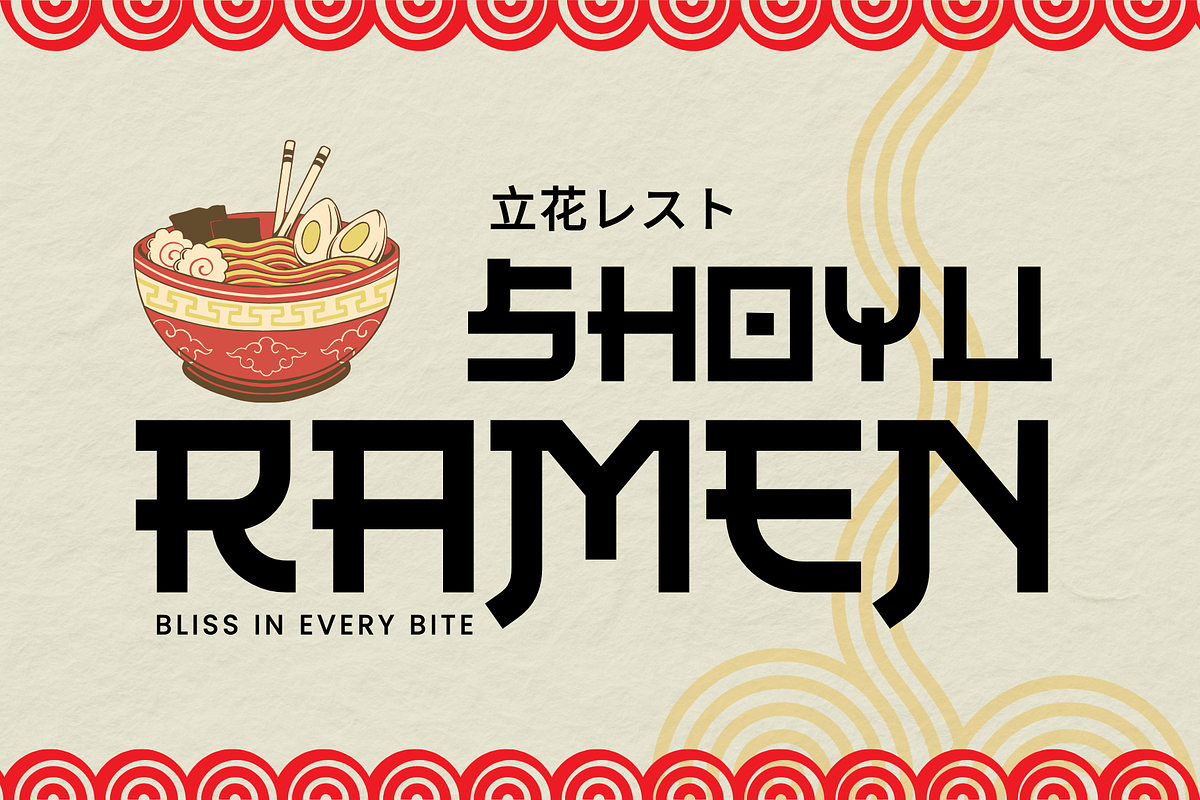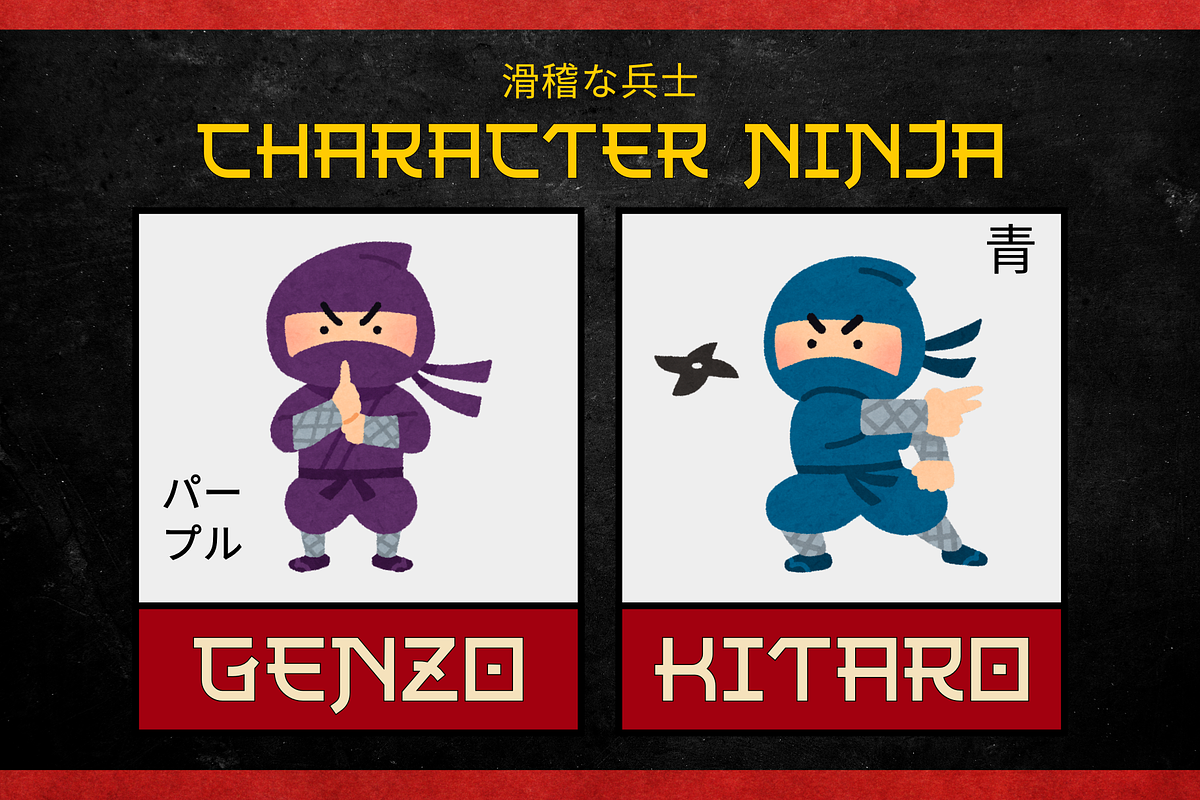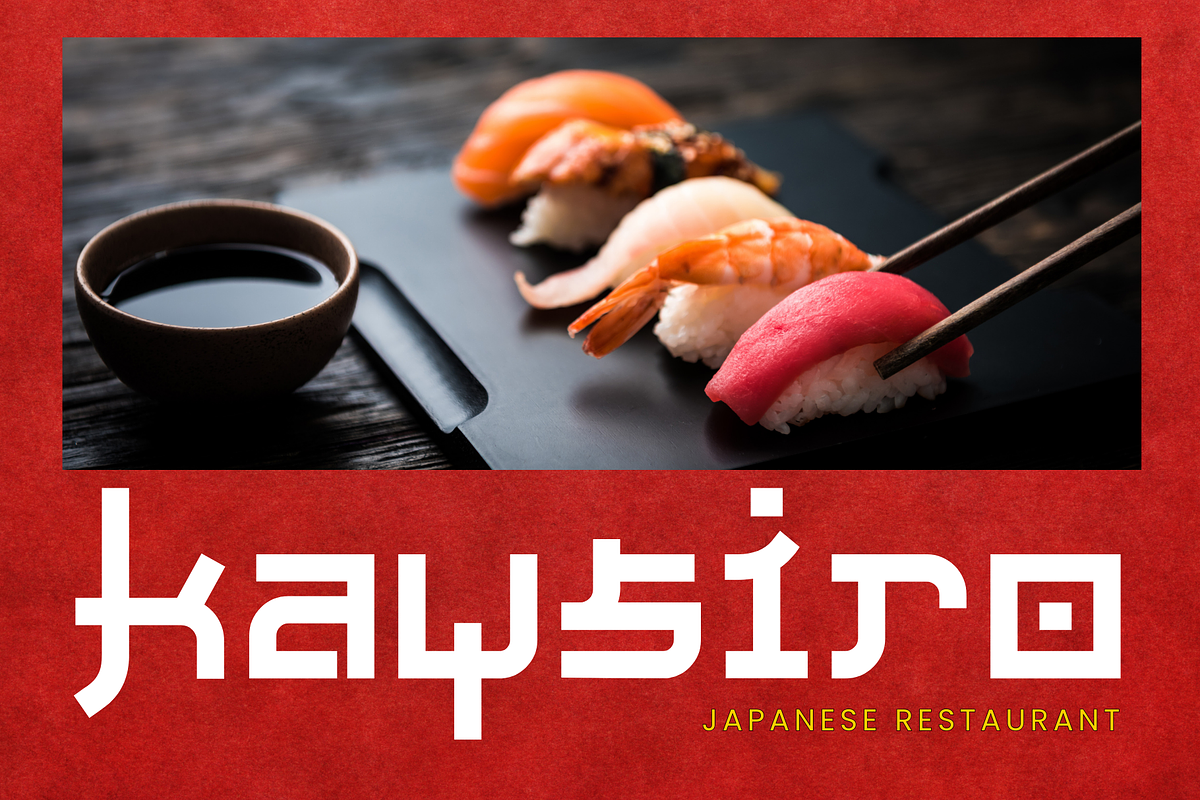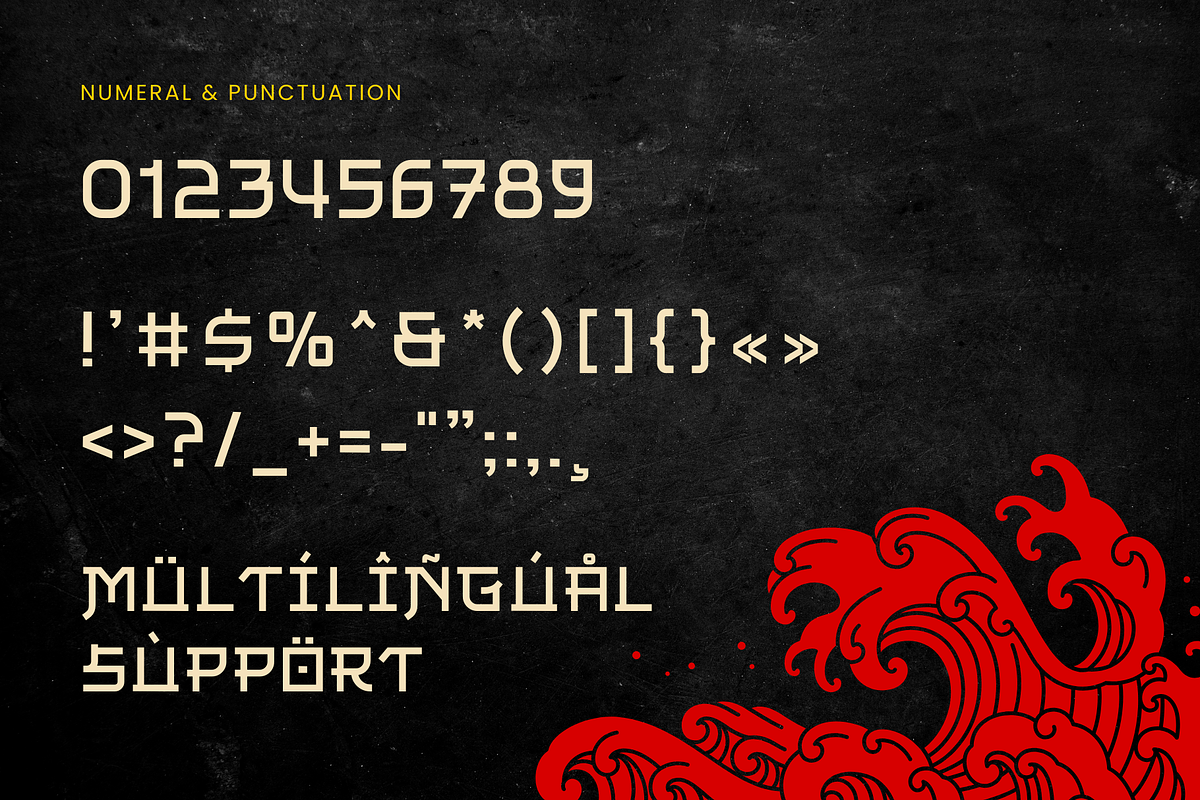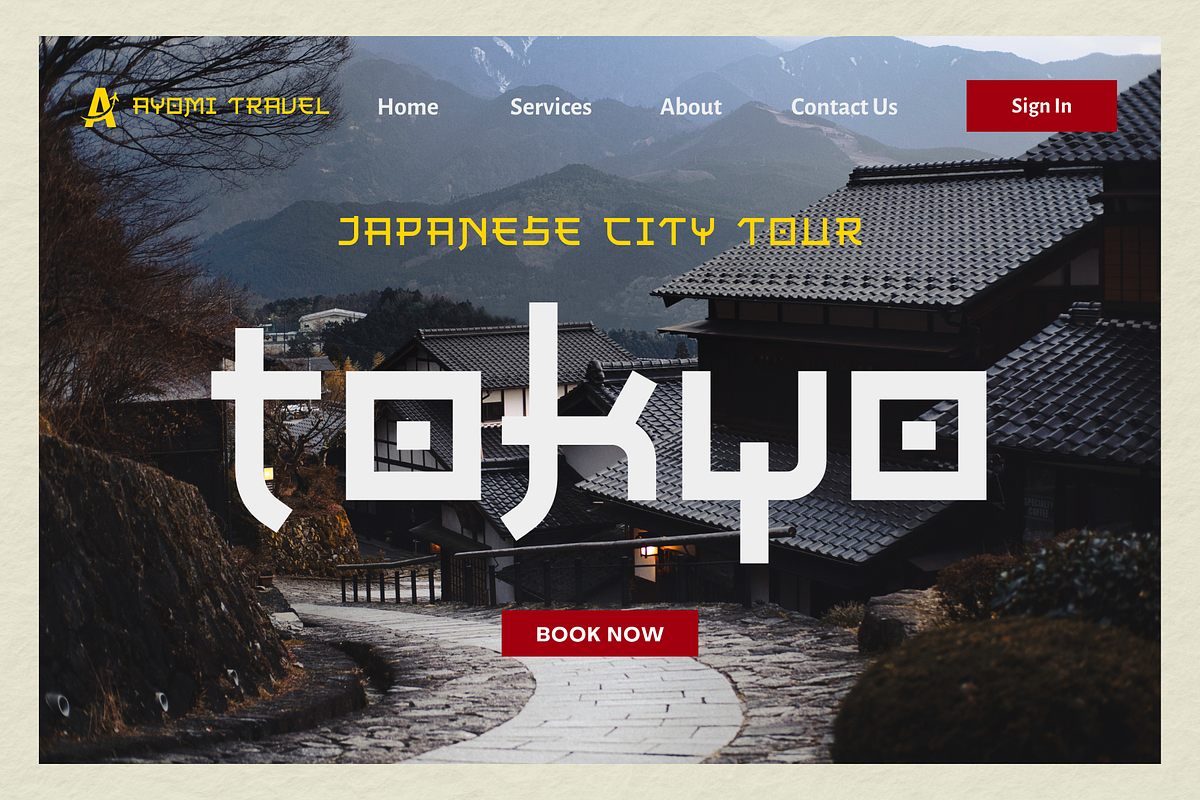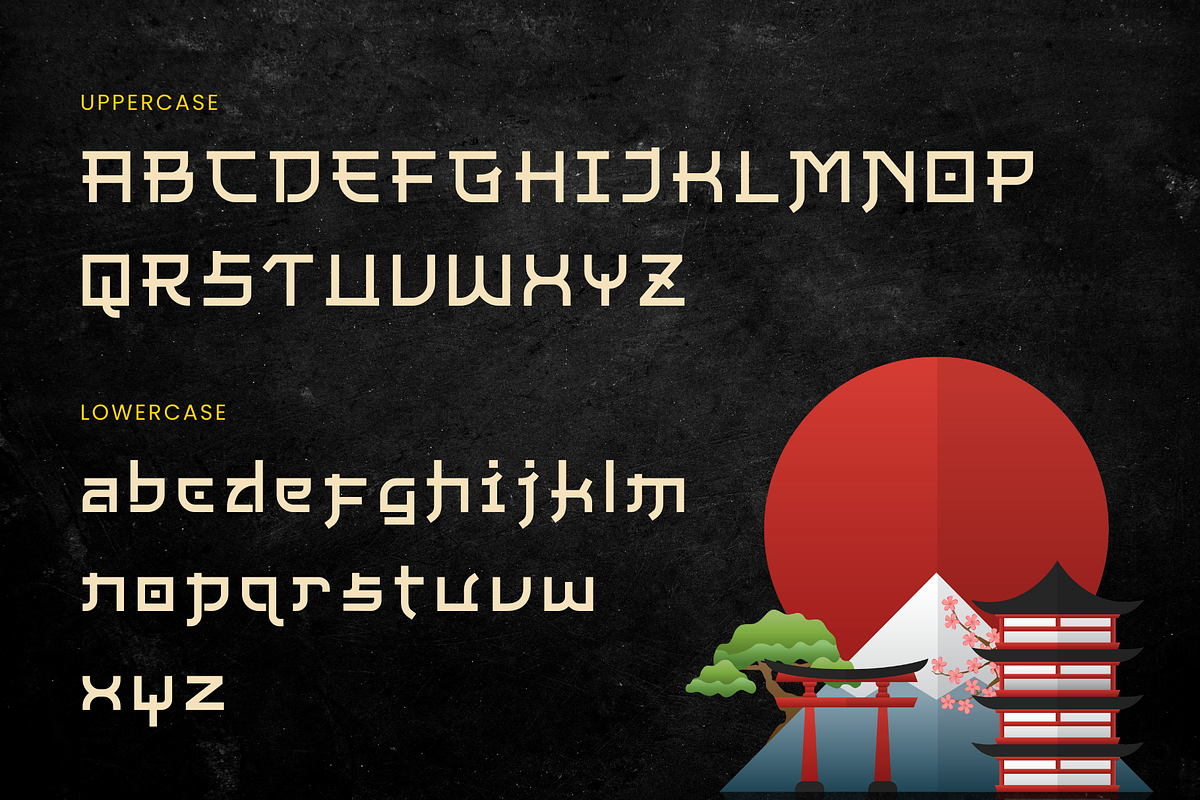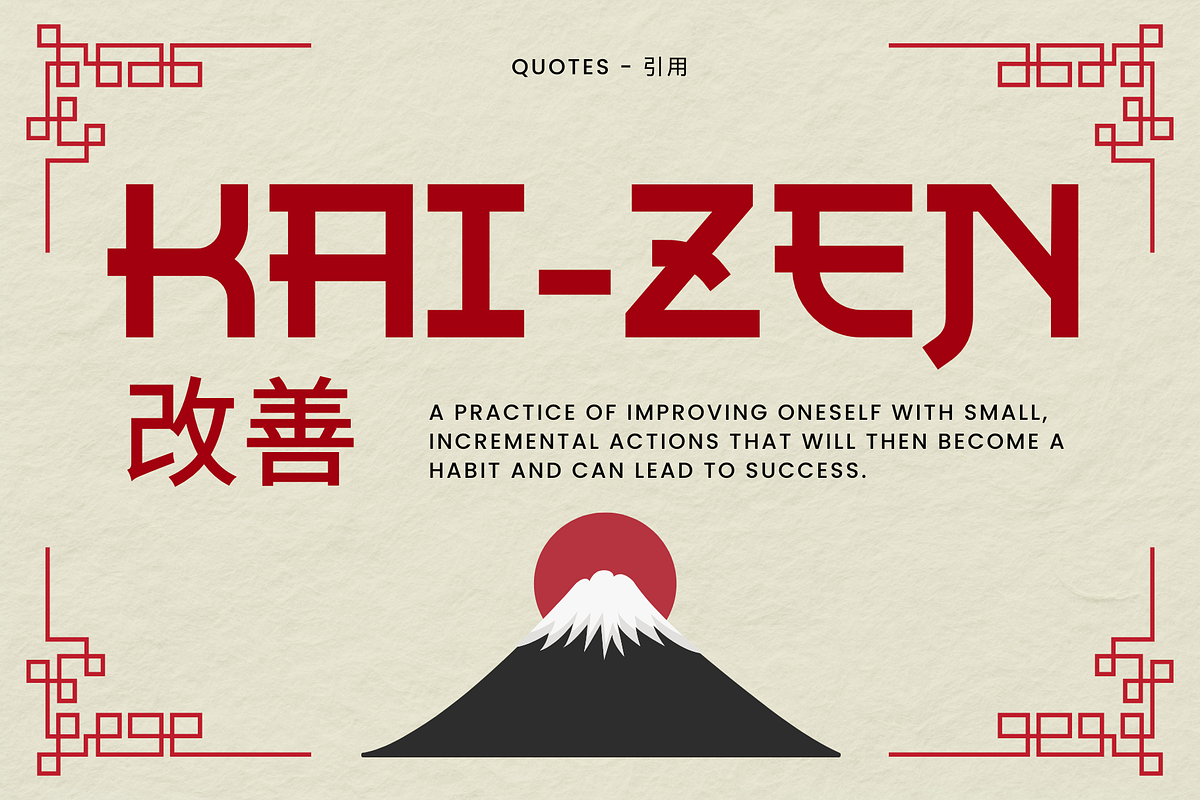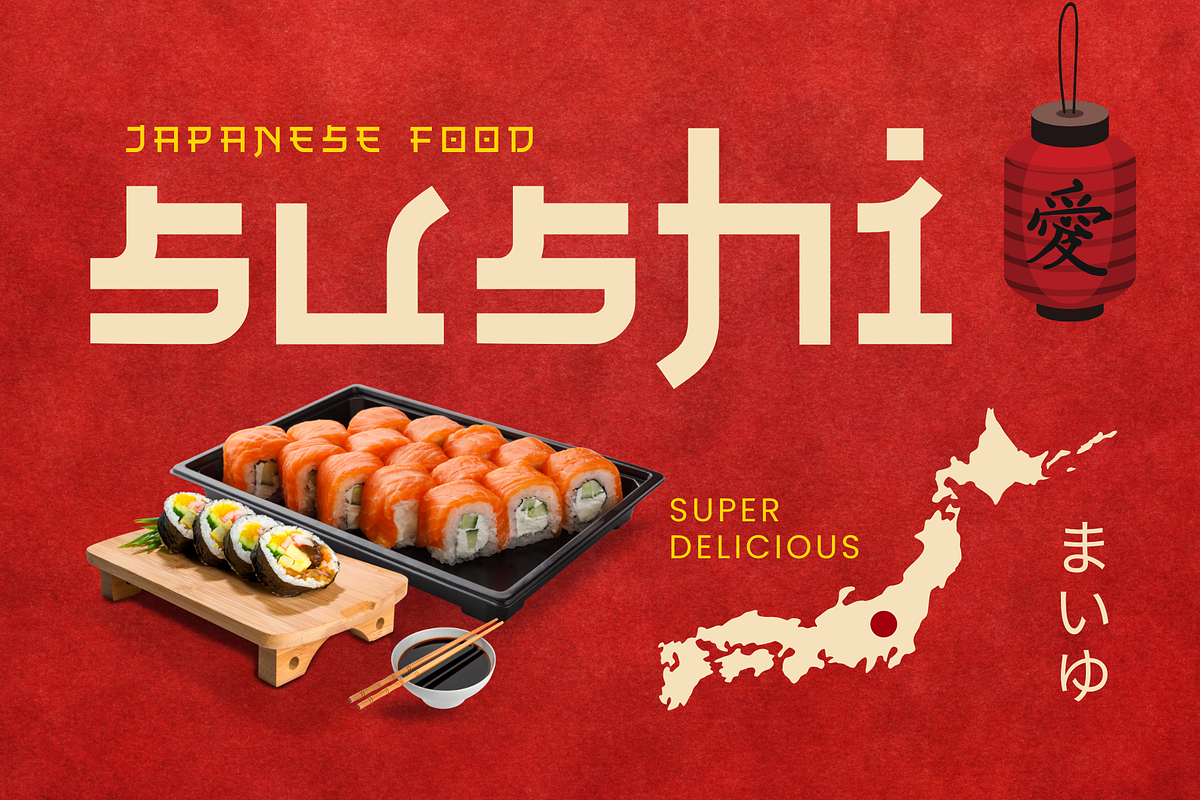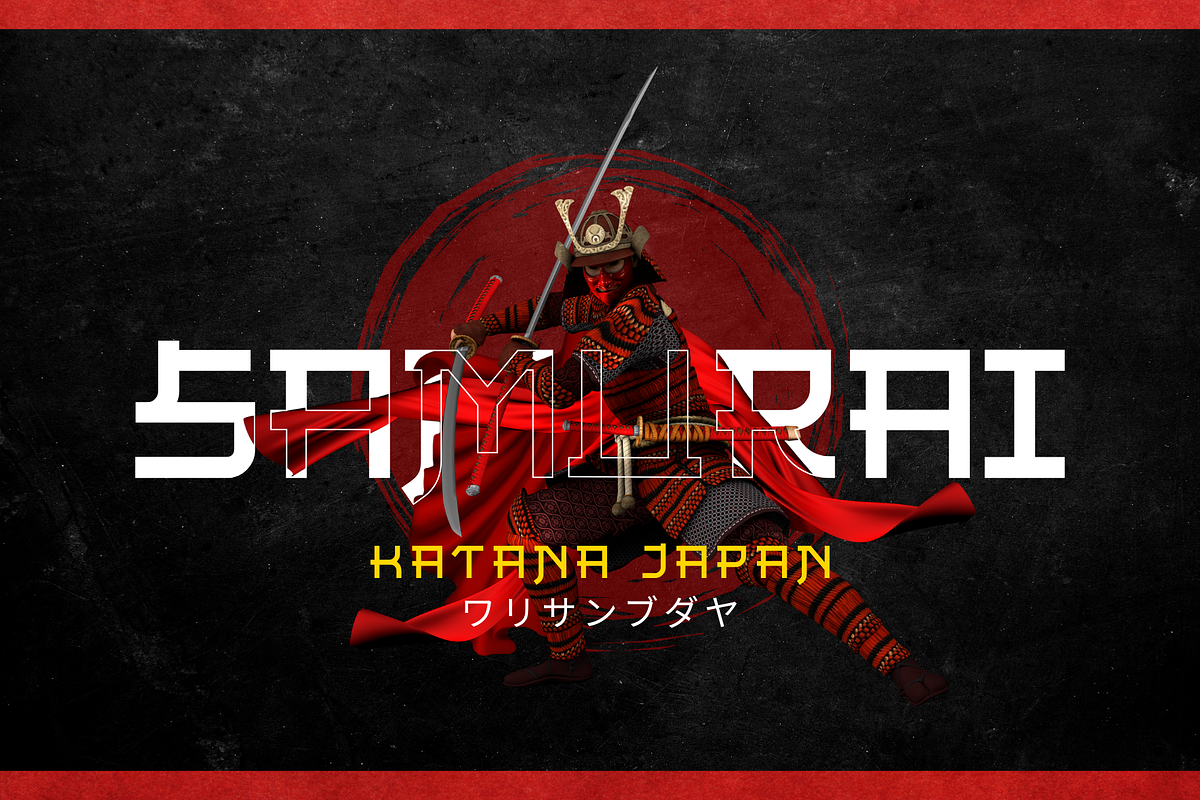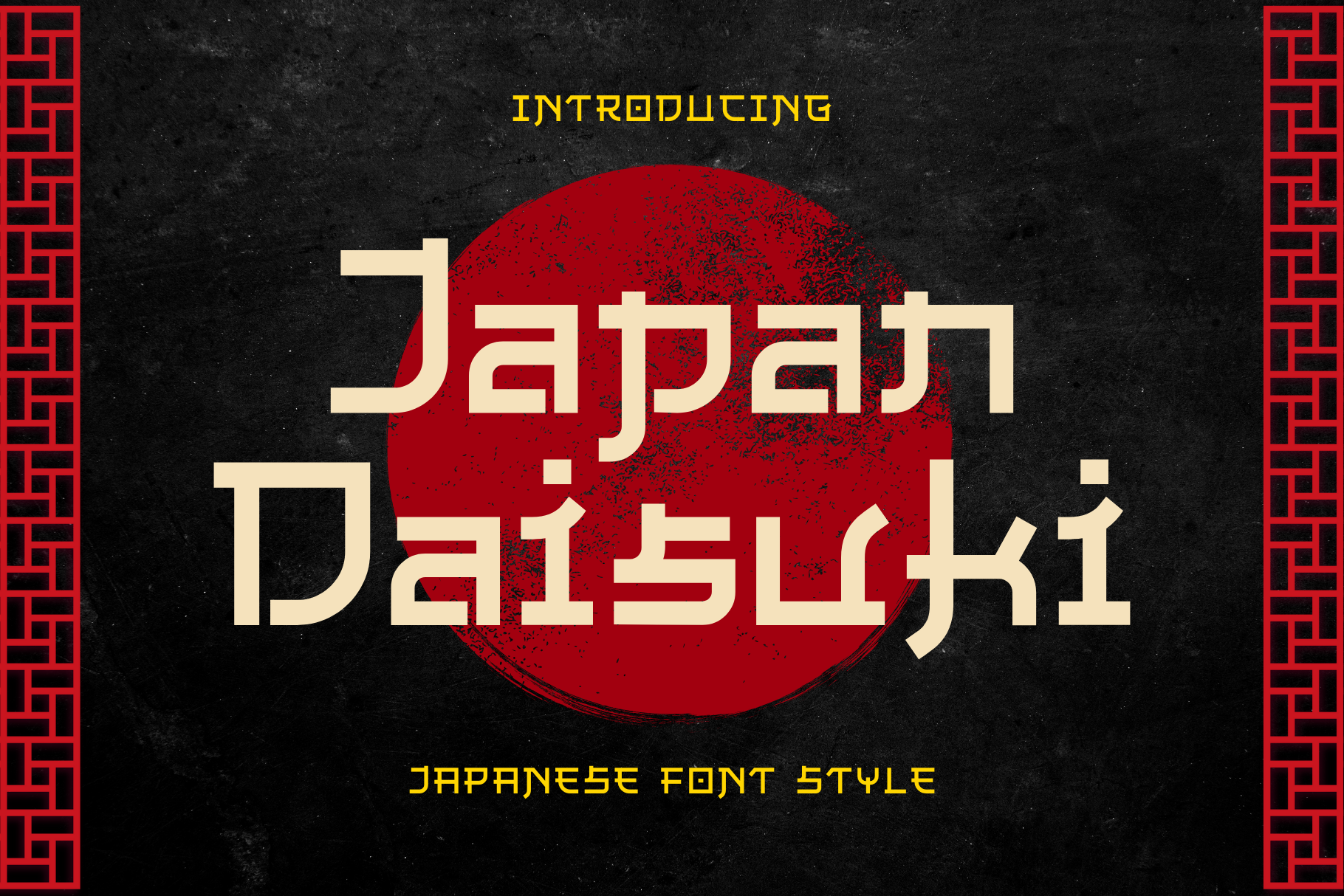
Japan Daisuki - Japanese Font Style
Introducing "Japan Daisuki," a bold font inspired by traditional Japanese style. Perfect for adding a touch of cultural flair to your designs, this font is ideal for posters, logos, branding, and more. "Japan Daisuki" combines strength and elegance, making your projects stand out with an authentic and captivating look. Embrace the beauty of Japanese typography with "Japan Daisuki."